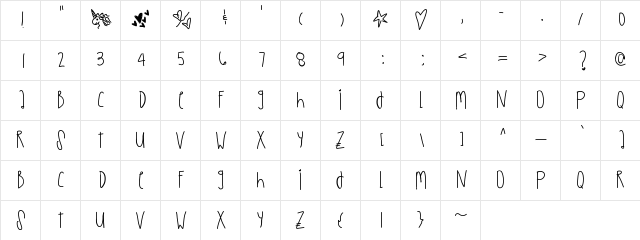
ParisViews Medium
Design Context for ParisViews
ParisViews is a composed and adaptable typeface that performs quietly and consistently across a wide range of design contexts.